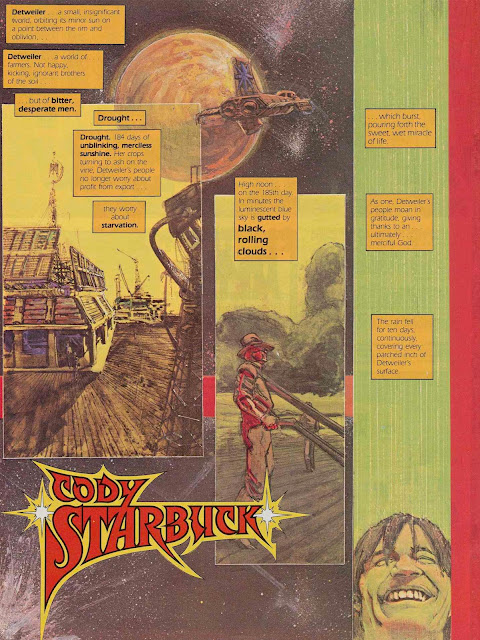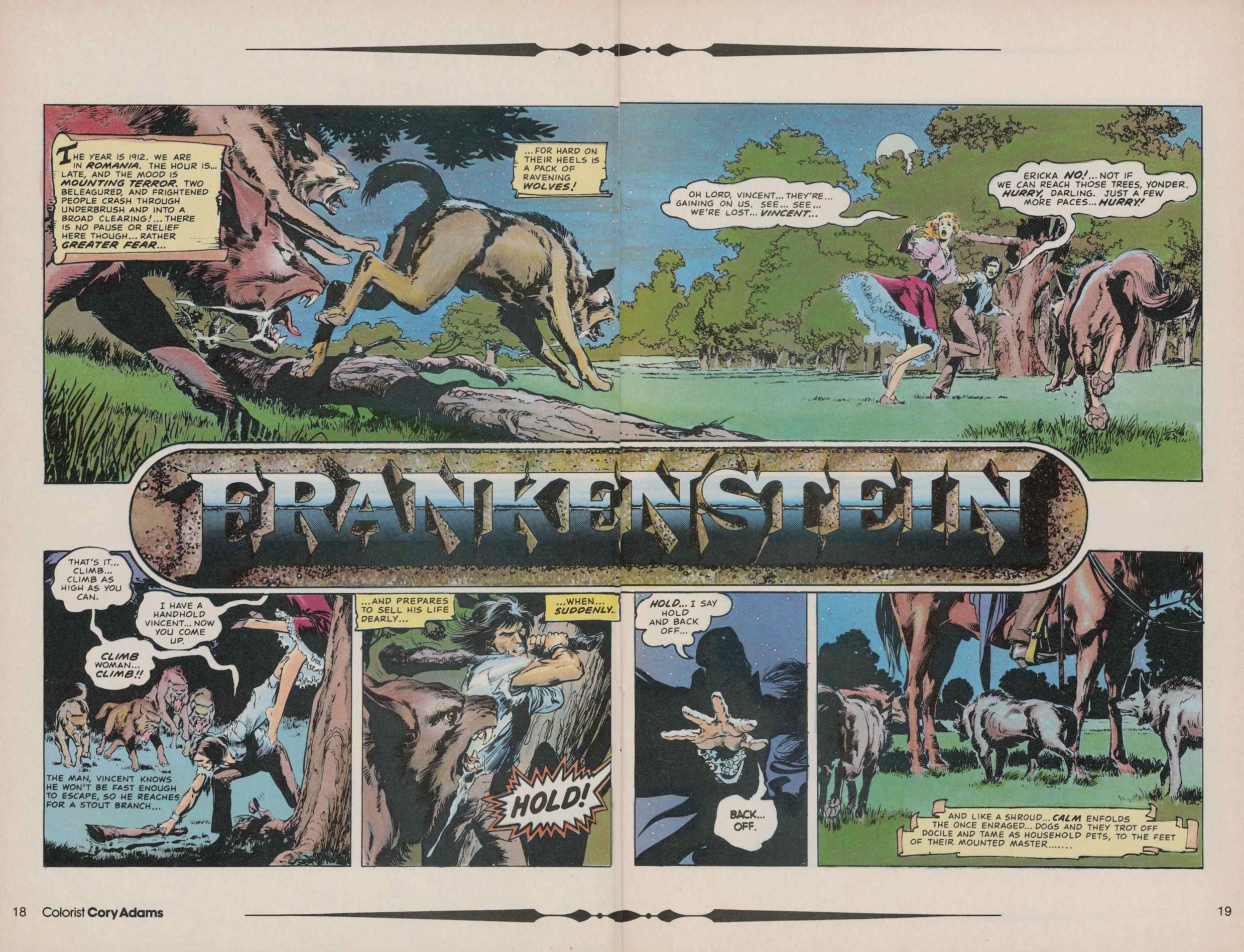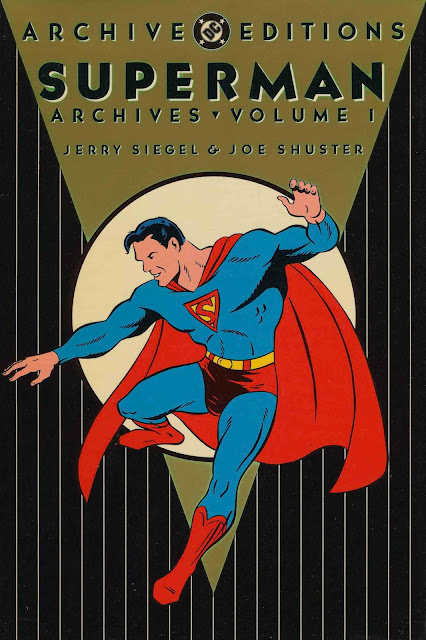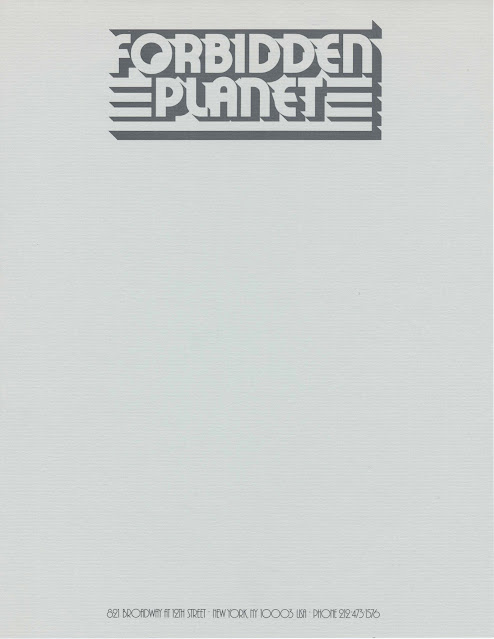
CAGE
Marc McLaurin, Editor, Marvel Comics, 1992
CALEB HAMMER
Jim Salicrup, Editor, Marvel Comics, 1980
Referral from Tom Orzechowski; “The Coming of” added by
another letterer
CAP’N QUCIK & A FOOZLE
Marshall Rogers, Creator, Eclipse Comics, 1984
Marshall Rogers furnished his logo sketch
CATWOMAN: HER SISTER’S KEEPER
Robbin Brosterman, Art Director, DC Comics, 1991
“Her Sister’s Keeper” was typeset.
CATWOMAN DEFIANT
Robbin Brosterman, Art Director, DC Comics, 1992
“Defiant” was typeset.
CATWOMAN
The 1992 title lettering was used for the 1993 series logo.
CINDER AND ASHE
Richard Bruning, Design Director, DC Comics, 1988
CLASH!
Robbin Brosterman, Art Director, DC Comics, 1991
Back cover detail: originally the viper heads art was part of the logo.
CLIVE BARKER'S THE HARROWERS
Marc McLaurin, Editor, Marvel Comics, 1993
“Raiders of the Abyss” was added by another letterer.
CLIVE BARKER’S HELLRAISER
Dan Chichester, Editor, Epic Comics, 1989
CODENAME: SPITFIRE
Bob Harras, Editor, Marvel Comics, 1987
CODY STARBUCK
Designed by Neal Adams; finished by Alex Jay
Howard Chaykin’s new Cody Starbuck story was picked up by Neal Adams’
Continuity Comics. Beginning in 1981 the story was serialized in Heavy
Metal, numbers 50 through 54.
THE COMPLETE JACK KIRBY
Greg Theakston, Publisher, Pure Imagination, 1997
The making of the logo is here.
CONAN SAGA
Larry Hama, Editor, Marvel Comics, 1988
CONTINUITY COMICS
Neal Adams, Art Director, 1982
Originally the flat edges of the uppercase C were perpendicular to
the baseline. In 1991, someone changed the angles of the edges.
COSMIC ODYSSEY
Richard Bruning, Art Director, DC Comics, 1988
COSMIC POWERS
Craig Anderson, Editor, Marvel Comics, 1994
“Thanos” created by another letterer
COSMIC POWERS UNLIMITED ... STARRING
Mark Gruenwald, Editor, Marvel Comics, 1995
“The Silver Surfer” created by another letterer.
COUNT DRACULA
Neal Adams, Publisher, Continuity Comics, 1981
Logo based on the typeface Hoffman; debuted in Echo of Futurepast
#5, April 1985; reprinted in Neal Adams Monsters, Vanguard
Productions, 2003
CROSSOVER CLASSICS: THE MARVEL/DC COLLECTION
Robbin Brosterman, Art Director, Marvel Comics, 1991
THE CRUSADERS
Michael Golden, Artist, DC Comics, 1992
CBS SATURDAY
Neal Adams, Art Director; TV Guide, September 1978
Alex Jay did production work (making tint overlays) on these advertisements.
DARKHOLD: PAGES FROM THE BOOK OF SINS
Bobbie Chase, Editor, Marvel Comics, 1992
First issue did not use the subtitle; logo previewed in Ghost Rider #25
DC ARCHIVE EDITIONS: SUPERMAN ARCHIVES VOLUME 1
Richard Bruning, Design Director, DC Comics, 1989
Series design by Alex Jay; Kabello Extra Bold and Metro are the
principal typefaces.
DC ARCHIVE EDITIONS: BATMAN ARCHIVES VOLUME 1
Richard Bruning, Design Director, DC Comics, 1990
Series design by Alex Jay; Kabello Extra Bold and Metro are the
principal typefaces.
DCU HEROES SECRET FILES & ORIGINS
Georg Brewer, Design Director, DC Comics, 1999
“DCU Heroes” by Alex Jay
DCU VILLAINS SECRET FILES & ORIGINS
Georg Brewer, Design Director, DC Comics, 1999
“DCU Villains” by Alex Jay
DOCTOR ZERO: THE SHADOW LINE SAGA
Archie Goodwin, Editor, Dan Chichester, Writer, Epic Comics, 1988
ECHO OF FUTUREPAST
Neal Adams, Publisher, Continuity Comics, 1984
Designed by Neal Adams; finished art by Alex Jay
ECTOKID
Marc McLaurin, Editor, Marvel Comics, 1993
Sketch furnished to Alex Jay to finish.
ECTOKID UNLEASHED
Marc McLaurin, Editor, Marvel Comics, 1994
“Unleashed” added by another letterer.
ELRIC
Walt Simonson, Artist, DC Comics, 1988
“Michael Moorcock’s” and “The Making of a Sorcerer” were set in a
typeface designed by Alex Jay.
ELSEWORLD’S FINEST
Robbin Brosterman, Art Director, DC Comics, 1997
EMPIRE
Byron Preiss, Editor, Berkley, 1978
ERADICATOR
Georg Brewer, Design Director, DC Comics, 1996
EXCALIBUR
Terry Kavanaugh, Editor, Marvel Comics, 1992
THE FALL OF THE MUTANTS
Ann Nocenti, Editor, Marvel Comics, 1988
Crossover logo for The New Mutants #59-61; The Uncanny X-Men
#225-227; and X-Factor #24-26
FANTASY ILLUSTRATED
Richard Howell, Editor, New Media Publishing, 1982
referral from Tom Orzechowski
THE FINAL NIGHT
Georg Brewer, Design Director, DC Comics, 1996
FIRESTAR
Ann Nocenti, Editor, Marvel Comics, 1986
FORBIDDEN PLANET
Michael Luckman, Proprietor, New York City, 1982
Letterhead
FORBIDDEN PLANET
Michael Luckman, Proprietor, New York City, 1984
Letterhead and shopping bag with art by Brian Bolland. The making of the
FRANKENSTEIN
Neal Adams, Publisher, Continuity Comics, 1981
Bob Harras, Editor, Marvel Comics, 1988
ZATANNA
Curtis King, Art Director, DC Comics, 1993